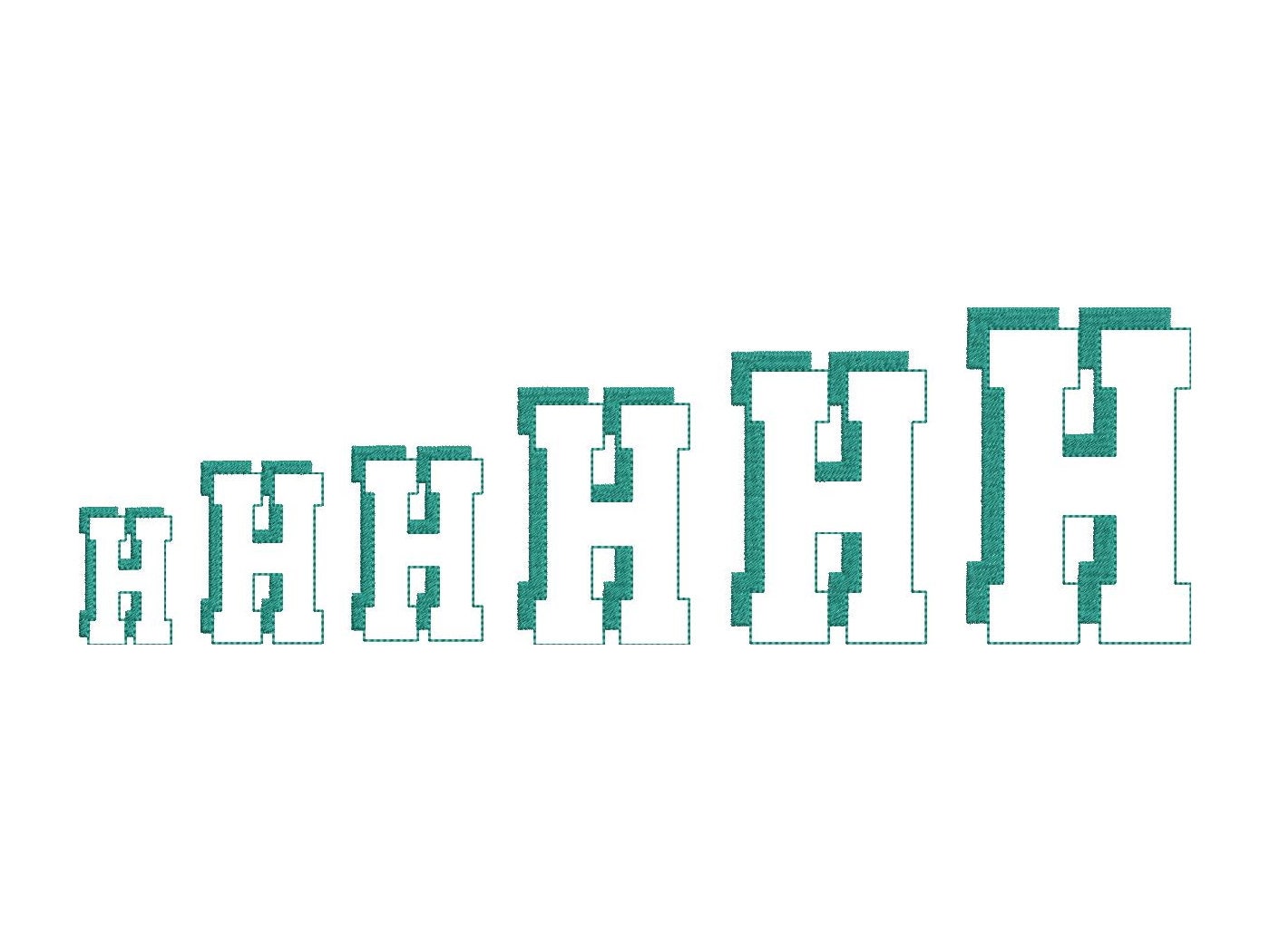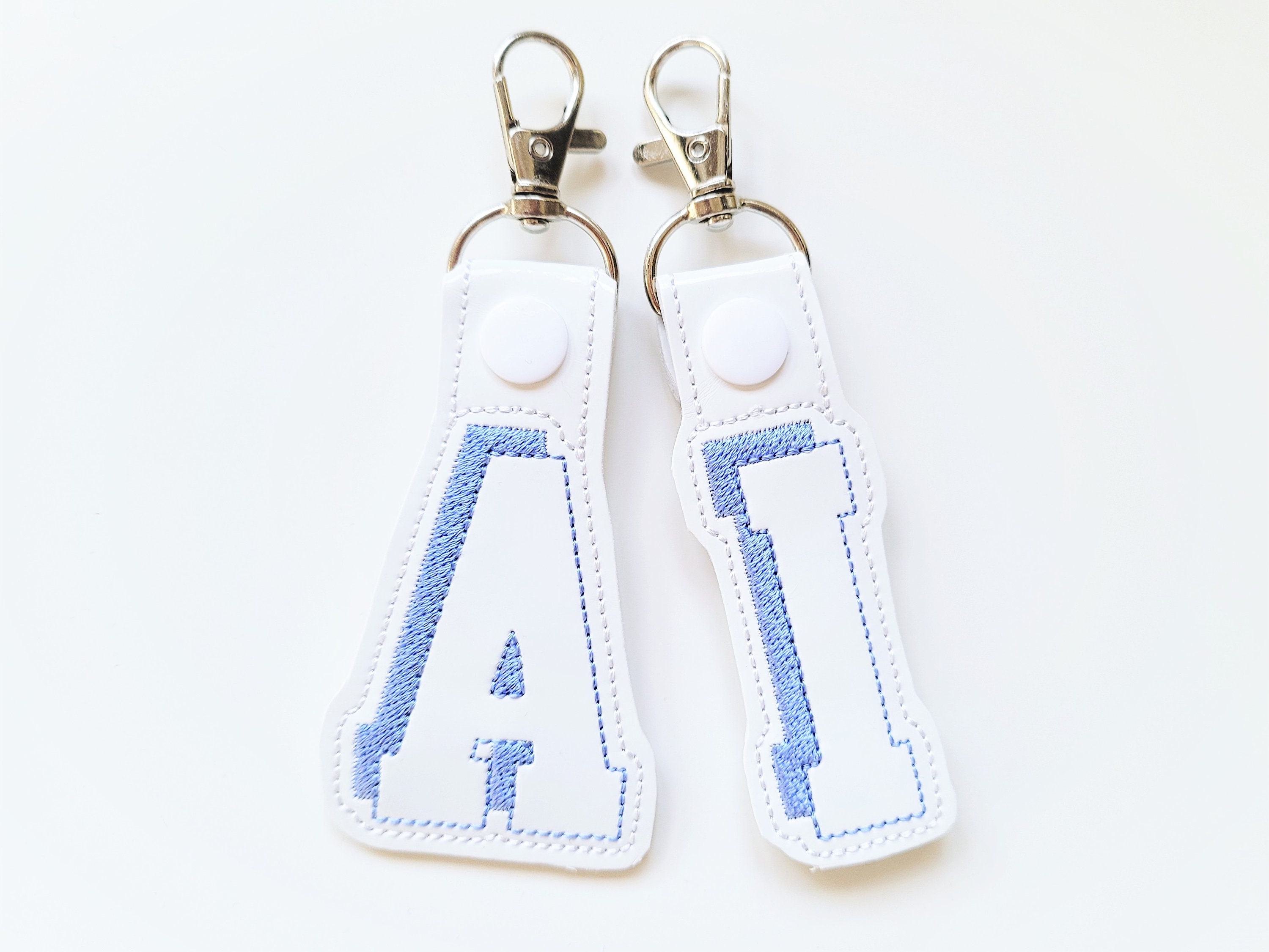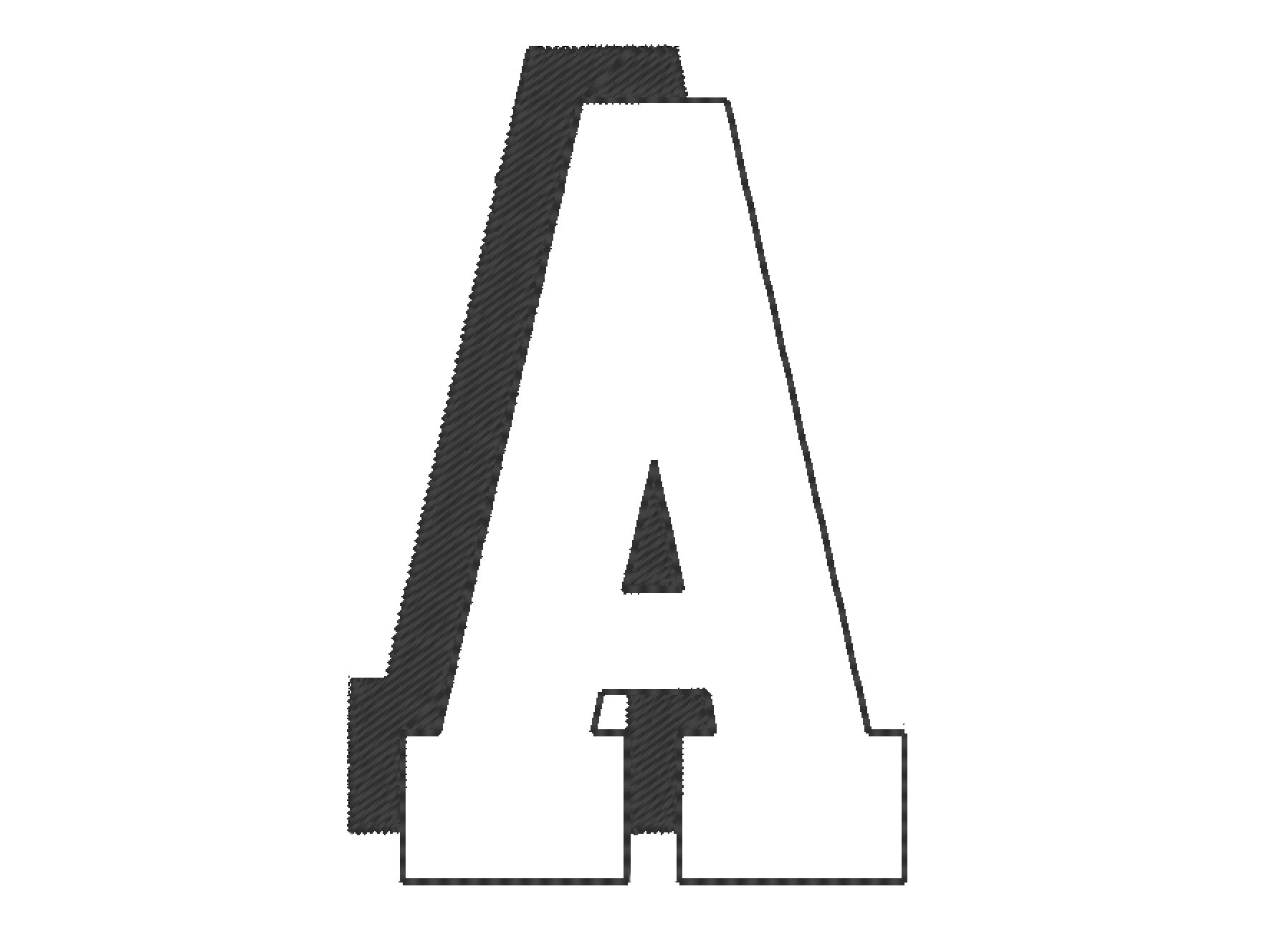
Sport block shadow Font monogram alphabet machine embroidery designs letters & numbers sizes from 1.5, 2, 2.5, 3, 3.5, 4in, BX included!
Uppercase, numbers, and Ampersand &
The font is transparent, it has a fill stitch shadow and outline. Awesome result!